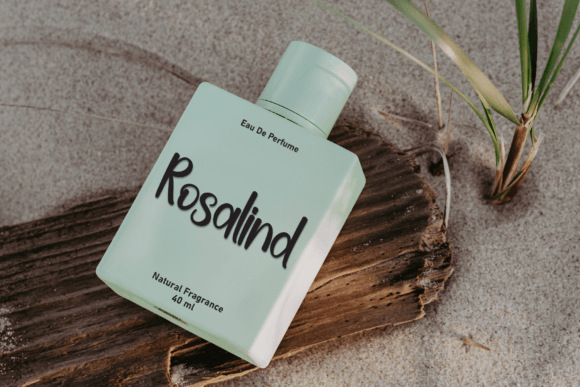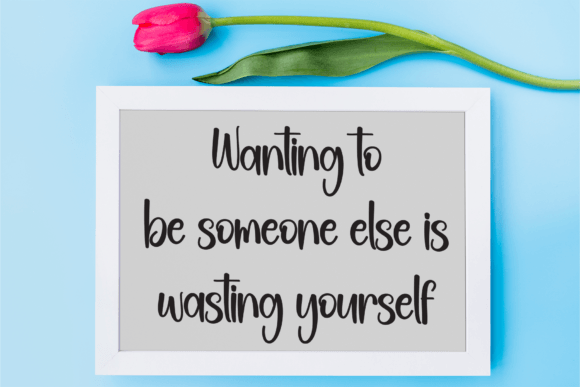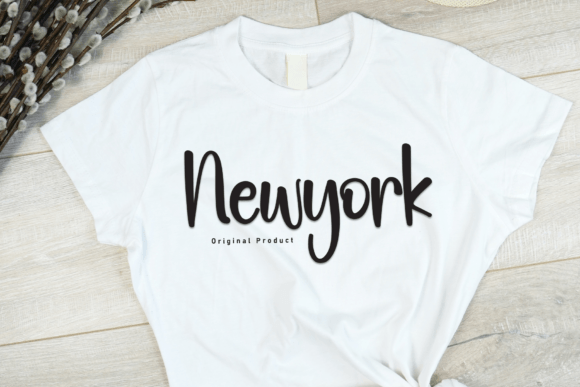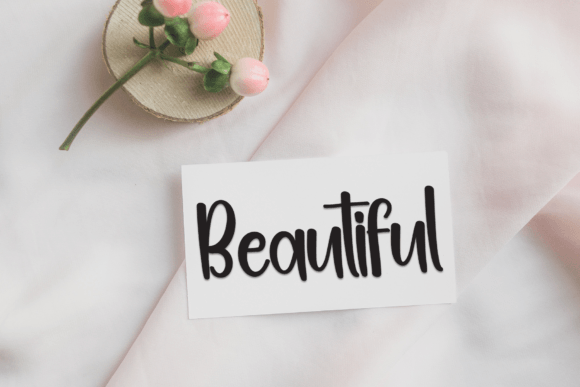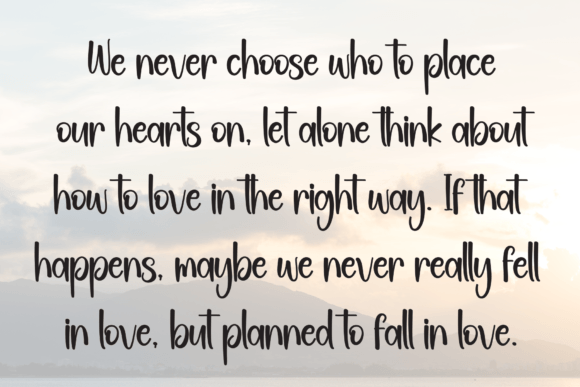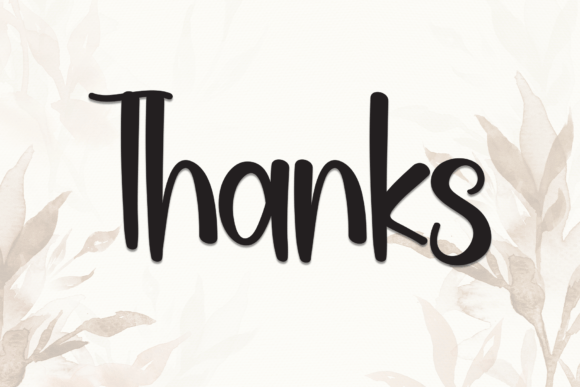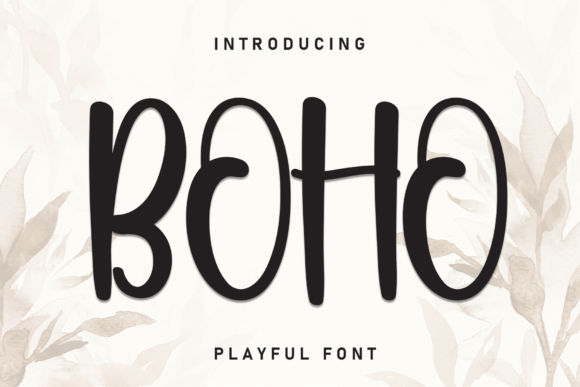
Unleash Your Creativity with the Boho Font
Have you ever been browsing through a vintage market, sipping on a warm cup of coffee, and stumbled upon the perfect inspiration for your next design project? That’s exactly what happened to many designers when they discovered the Boho Font.
Boho Font is a sweet and friendly handwritten font that brings a touch of natural charm to any design. Its unique style makes it incredibly versatile, allowing you to use it in a wide range of projects, from wedding invitations to social media graphics.
As a designer, you know how valuable it is to have a font that can add a personal touch to your work. The Boho Font is an excellent choice, offering endless possibilities for creative expression. With its friendly and approachable style, you can create designs that truly reflect your personality and style.
Key Features of Boho Font
- Unique Characteristics: Boho Font features a mix of elegant and bohemian elements, with intricate details and ornaments that evoke a sense of luxury and sophistication.
- Font Styles: Boho Font comes in multiple styles, including Regular, Bold, Italic, and Bold Italic, providing users with various options to create unique and visually appealing designs.
- Scalability: The font is designed to be highly scalable, ensuring that it looks great in various sizes and resolutions, from small text to large headings and titles.
Boho Font Review
Overall, I was excited to dive into the Boho Font and see if it lives up to its bohemian vibe. ✨ One thing that immediately caught my attention was the variety of fonts within the collection. You get a range of styles, from elegant cursive scripts to bold sans-serif fonts, making it versatile for different design projects.
The Boho Font also has a unique, eclectic feel that’s perfect for adding a touch of personality to your designs. ✨ I loved experimenting with the different fonts and seeing how they interacted with each other. It’s great for creating visually interesting combinations that add depth to your designs.
One thing that didn’t quite work for me was the limited customization options. ⚠️ While the font itself is beautiful, I wish there were more ways to tweak it to fit my specific design needs.
In conclusion, the Boho Font is a great choice for designers looking to add some bohemian flair to their projects. While it may have some limitations, the variety of fonts and unique feel make it a worthwhile investment. I’d definitely consider using it again in the future.
- Unique, eclectic feel
- Great for adding personality to designs
Boho Font Practical Application Guide
Experiment with different font combinations to create a unique look. Use the font in conjunction with other design elements, such as illustrations or graphics, to add depth and interest to your design. Don’t be afraid to try out different font sizes, colors, and effects to achieve the perfect bohemian look.
Boho Font is perfect for creating a bohemian-inspired design, such as a wedding invitation, a travel brochure, or a fashion magazine. It’s also great for adding a touch of whimsy and personality to your social media graphics, blog posts, or website headers.
Are there any font pairing recommendations for the Boho Font?
Yes, the Boho Font is designed to pair well with a variety of other fonts. Some popular pairing options include Open Sans, Lato, and Montserrat. You can also experiment with different font combinations to find the perfect match for your project. Remember to consider factors like font size, line height, and color to ensure harmonious typography.